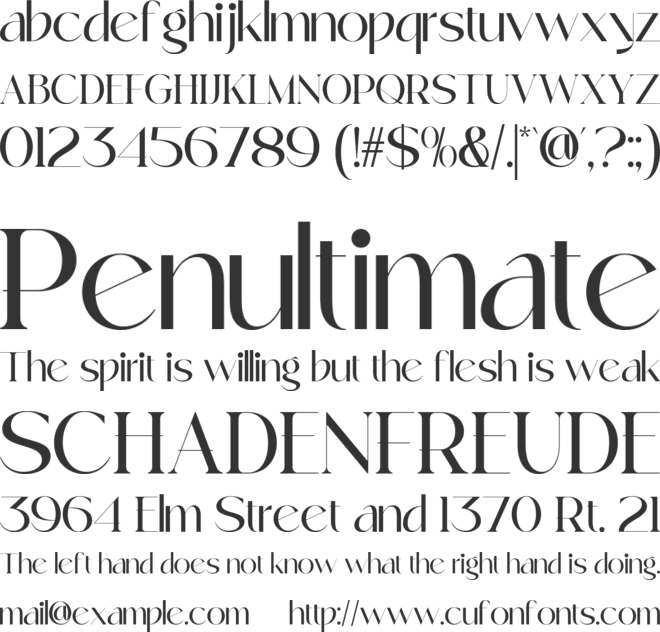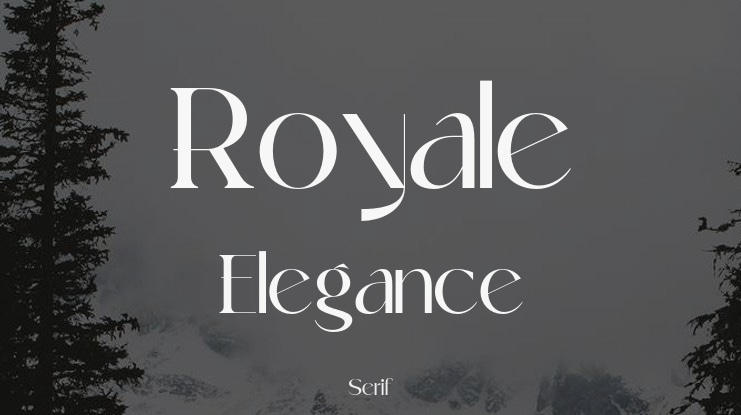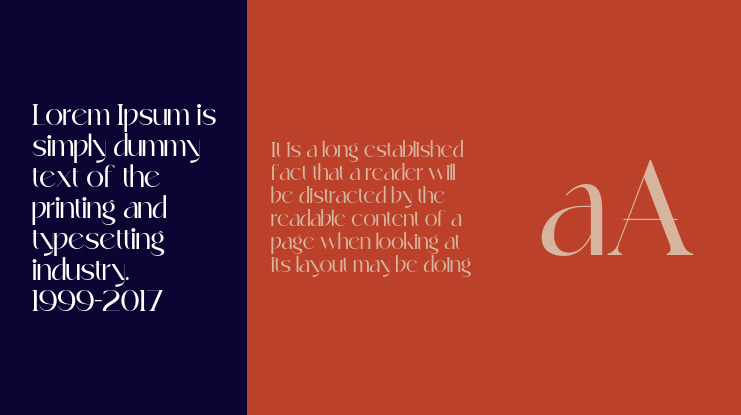
Royale Elegance Font Family
Royale Elegance is more than just a serif font—it’s a statement of style and refinement. Designed with a modern yet classic touch, this typeface brings effortless luxury to any project. Its delicate curves and well-balanced contrast create an elegant look that feels both timeless and contemporary.
Whether you’re working on branding, editorial layouts, wedding invitations, or premium packaging, Royale Elegance elevates your design with a sense of grace and sophistication. It blends the charm of traditional typography with a fresh, modern aesthetic, making it the perfect choice for those who appreciate subtle elegance with a bold presence.